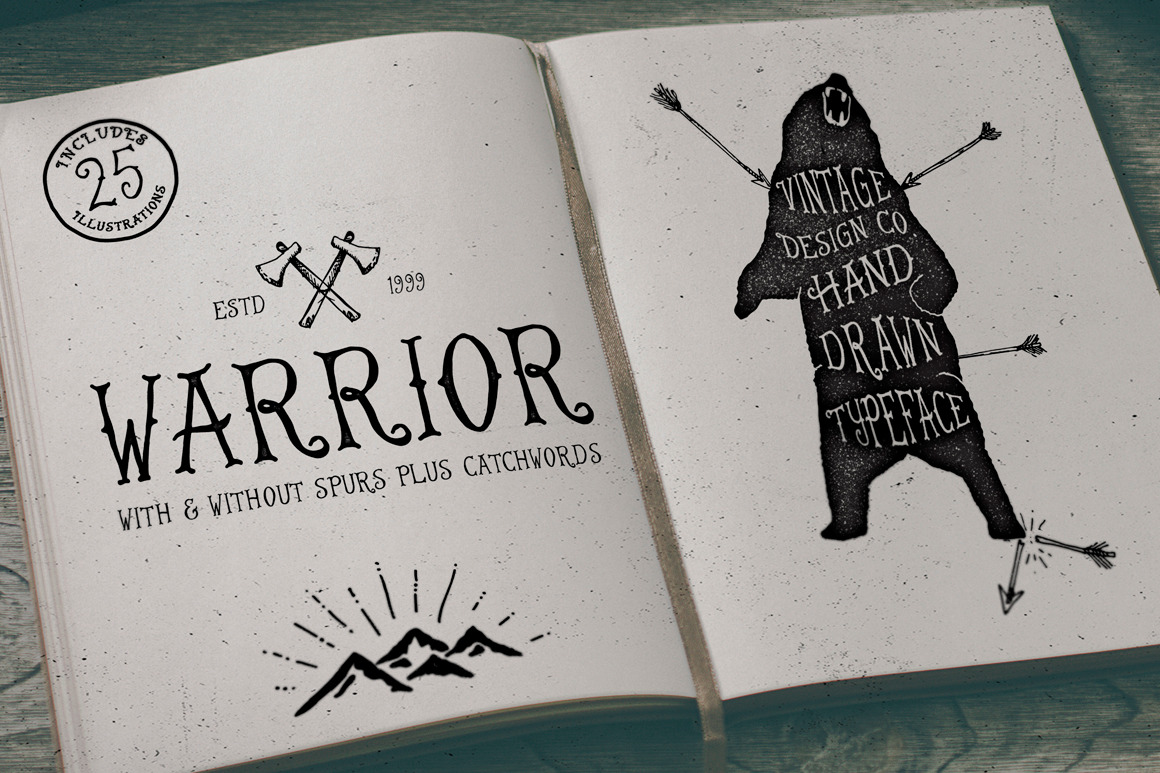
Warrior - Hand Drawn Typeface
After many hours with my pen and sketchpad my first font has finally landed. Taken from one of my hand lettering styles which regularly features on my Instagram & dribbble feeds, it is inspired by the love of vintage, the outdoors and a time when everything was made by hand.